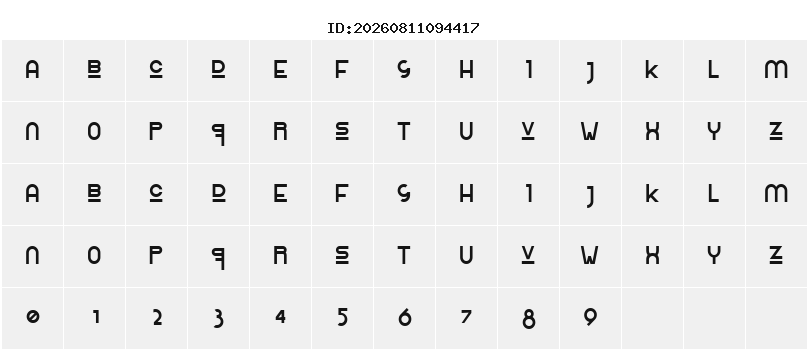
• Font Name: Rolinga Renner
• Font Style: Extravaganza
• Full Font Name: Rolinga Renner Extravaganza
• PostScript Name: RolingaRennerExtravaganza
About Rolinga Renner.ttf
Rolinga Renner.ttf is a modern, elegant sans-serif font designed for ultimate readability and visual harmony. Perfect for branding, headlines, web design, and print materials.